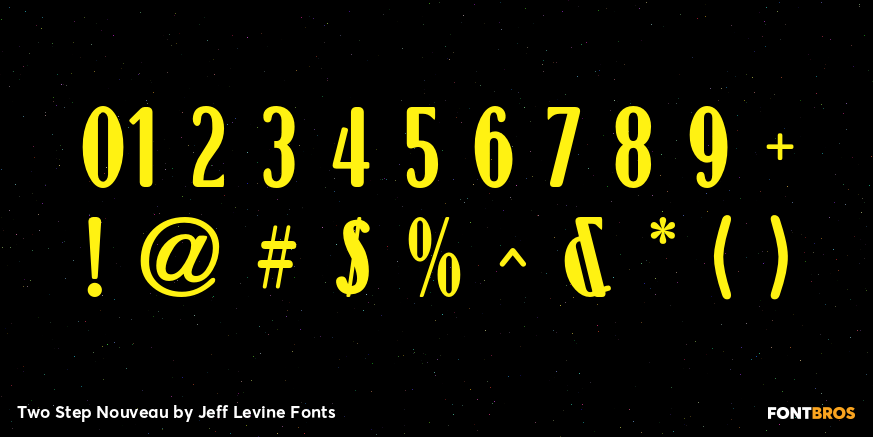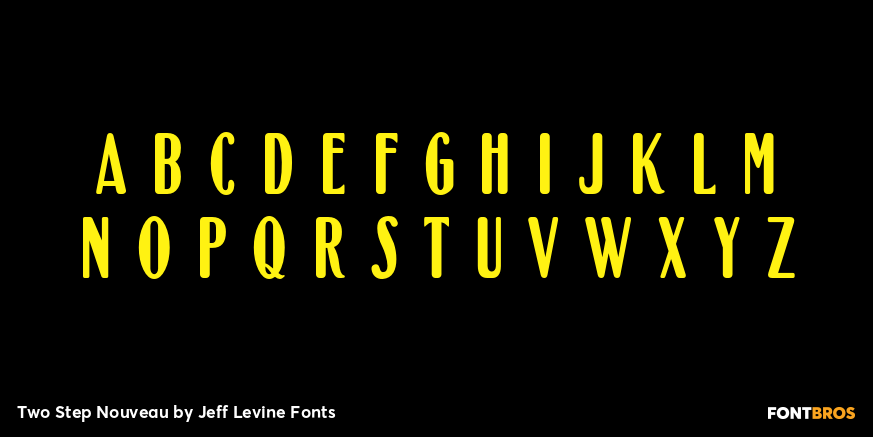
Two Step Nouveau
Popular music of the early 1900s included a genre called two step; round dances utilizing a sliding step with a tempo in either march or polka time.
1911's 'Daughters of the American Revolution' was one such march/two step. The cover of the sheet music had the title hand lettered in a slightly rounded sans serif type design in the Art Nouveau style popular during that era.
It is now available as Two Step Nouveau JNL, in both regular and oblique versions.